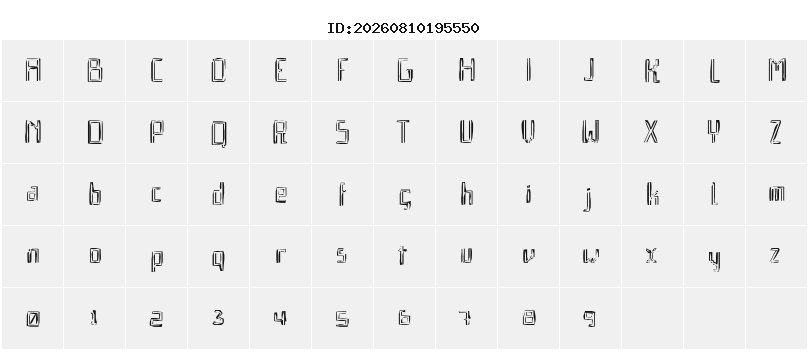
• Font Name: Qebrada
• Designer: deFharo
• Description: Esta fuente está basada, en sus proporciones, en la secuencia de fibonacci, la secuencia de Lucas y el triangulo de Kepler. Soy deFharo diseñador freelance en Spain, visita mi web defharo.com
About Qebrada.otf
Qebrada.otf is a modern, elegant sans-serif font designed for ultimate readability and visual harmony. Perfect for branding, headlines, web design, and print materials.